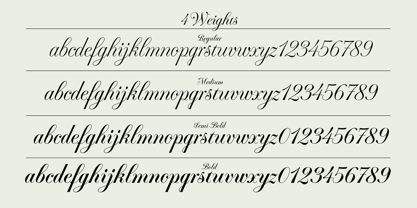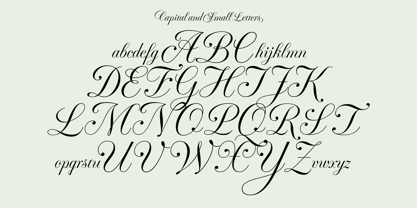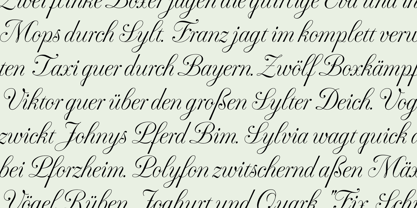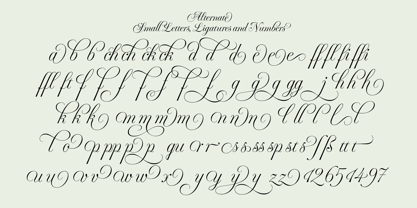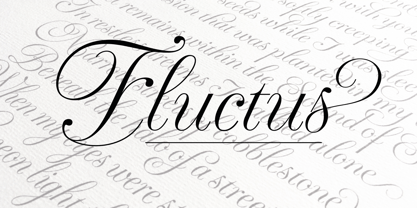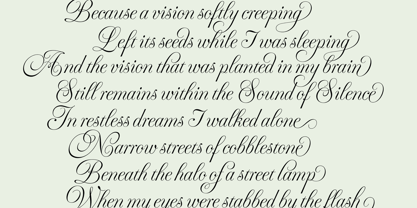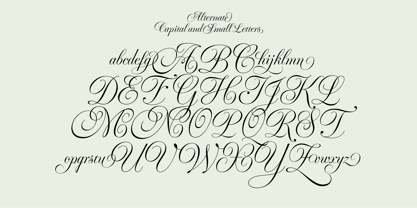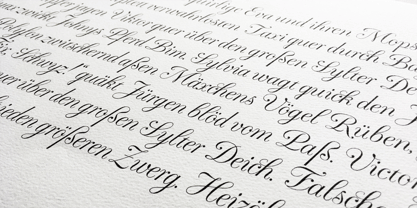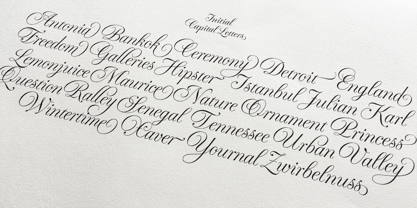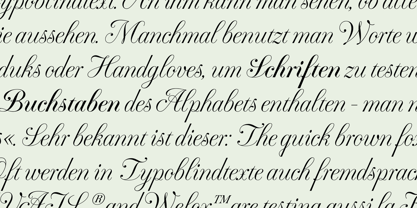
Fluctus
The Fluctus Font Family was designed by Bertram Kaiser and published by KaiserType. Fluctus contains 4 styles and family package options. More about this family
"Fluctus" is a beautifully crafted roundhand script font designed by Bertram Kaiser. Originally penned with a pointed nib based on original copperplate calligraphy, this font has undergone typographic refinement over the years. It features a striking high contrast design characterized by delicate hairlines and bold strokes, resulting in an overall elegant and decorative appearance. With a wide array of alternate glyphs, swash capitals, and both initial and terminal forms, it allows for the creation of unique, dynamic text layouts reminiscent of traditional calligraphy. This versatile font comes with four weights (regular, medium, semi-bold and bold) and is suitable for both display sizes and smaller text applications, making it ideal for invitation cards, certificates, and magazines.
KaiserType is the personal foundry of Bertram Kaiser. Bertram Kaiser was born in Munich Germany. He studied graphic design at the University of Applied Sciences in Augsburg Germany and graduated in 2017 (BA+MA). In his studies he evolved a passion for letter design and typography. His approach to typedesign is mainly based on manual lettershaping such as calligraphy and lettering with a strong focus on historical forms. Therefor his aim is to provide typefaces with a very lively manual look using all the technical possibilities of modern type design such as e. g. alternate letter shapes via OpenType. In 2019 he decided to come up with his personal foundry KaiserType.